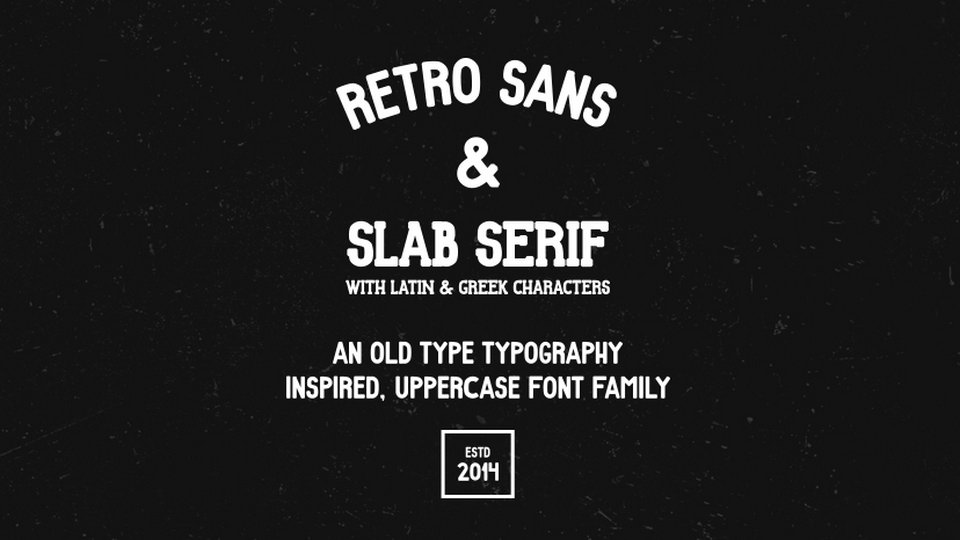
Retro Font
Retro is a vintage font family designed as a result of love for typography and especially in the time of 20th century. It comes with Sans and Slab fonts, contains all caps letters, supports Latin and Greek languages.
Retro font family looks great for vintage design projects, logotypes, badges, labels, branding and merchandise and much more.
• Name: Retro
• Author: Vasilis Skandalos